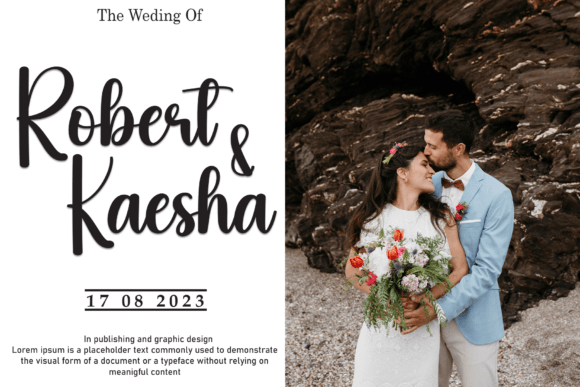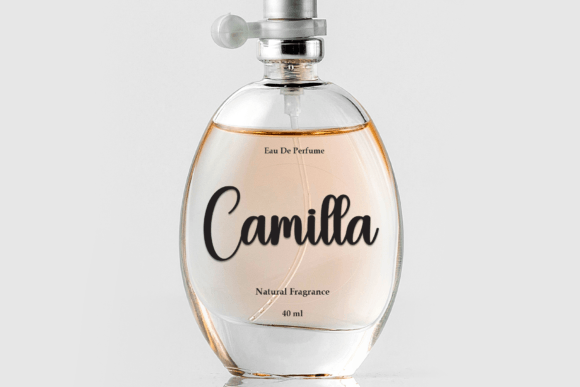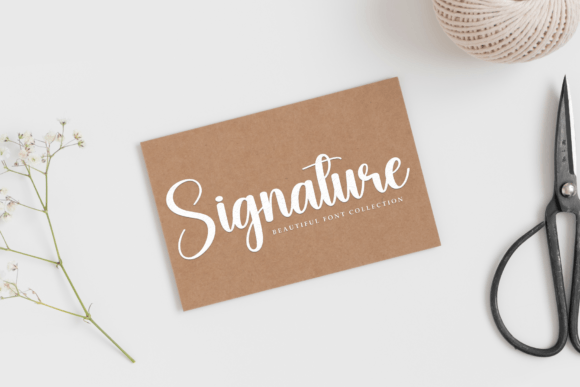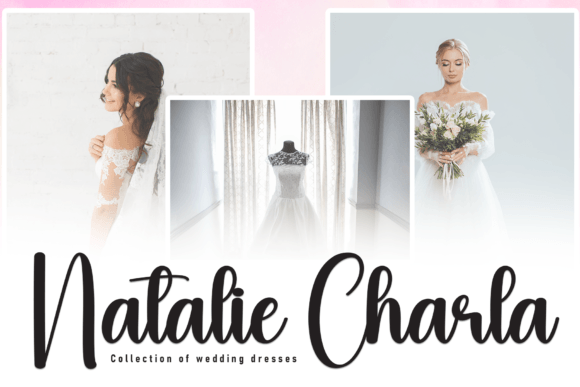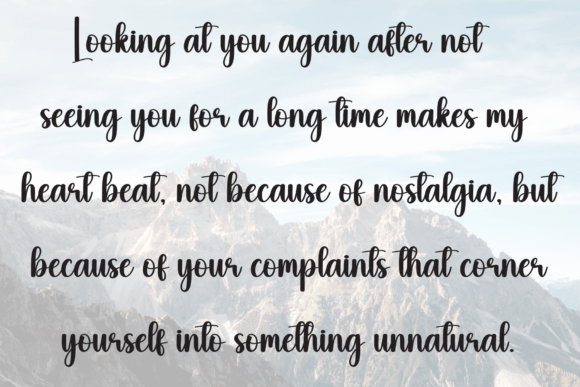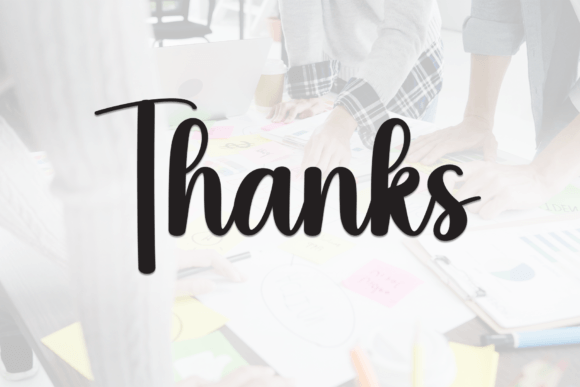
Introducing Briefly Font: Elevate Your Designs with Elegance and Sophistication
In the world of typography, a well-crafted font can make all the difference in transforming a design from ordinary to extraordinary. For designers and crafters seeking to add a touch of elegance and sophistication to their projects, Briefly Font is an exceptional choice. This stylish and incredibly elegant script font is perfect for a variety of applications, including wedding invitations, thank you cards, quotes, greeting cards, logos, business cards, and more.
The Characteristics of Briefly Font
Briefly Font boasts a range of characteristics that make it an ideal choice for designers and crafters. Its elegant script style is reminiscent of handwritten calligraphy, lending a personal and luxurious feel to any design. The font’s flowing lines and curves create a sense of movement and fluidity, making it perfect for designs that require a touch of sophistication.
Uses of Briefly Font
The versatility of Briefly Font is one of its most appealing features. Here are some of the many ways you can use this beautiful font:
- Wedding Invitations: Add a touch of romance and elegance to your wedding invitations with Briefly Font. Its stylish and sophisticated design makes it perfect for formal wedding announcements, save-the-date cards, and wedding programs.
- Thank You Cards: Express your gratitude in style with Briefly Font. This font is ideal for creating beautiful thank you cards for special occasions, such as weddings, baby showers, and birthdays.
- Quotes and Inspirational Posters: Briefly Font is perfect for creating stunning quotes and inspirational posters. Its elegant design makes it easy to read and visually appealing.
- Greeting Cards: Create beautiful greeting cards for any occasion with Briefly Font. From birthday cards to Christmas cards, this font is sure to impress.
- Logos and Branding: Use Briefly Font to create a luxurious and sophisticated logo for your business or brand. Its elegant design makes it perfect for high-end brands and businesses.
- Business Cards: Stand out from the crowd with Briefly Font on your business cards. Its stylish design makes it perfect for professionals and entrepreneurs.
Why Choose Briefly Font?
With so many fonts available, why choose Briefly Font? Here are just a few reasons:
- Elegance and Sophistication: Briefly Font exudes elegance and sophistication, making it perfect for designs that require a touch of luxury.
- Versatility: This font is versatile and can be used for a wide range of applications, from wedding invitations to logos and branding.
- Easy to Read: Briefly Font is easy to read, making it perfect for designs that require a clear and concise message.
- Unique and Creative: This font is unique and creative, making it perfect for designers and crafters who want to stand out from the crowd.
Tips for Using Briefly Font
Here are a few tips for using Briefly Font:
- Use it Sparingly: Briefly Font is a statement font, so use it sparingly to make a big impact.
- Pair it with Other Fonts: Pair Briefly Font with other fonts to create a unique and visually appealing design.
In conclusion, Briefly Font is a stylish and incredibly elegant script font that is perfect for designers and crafters seeking to add a touch of sophistication and elegance to their projects. Its versatility, elegance, and ease of use make it an ideal choice for a wide range of applications. Whether you’re creating wedding invitations, thank you cards, quotes, greeting cards, logos, business cards, or more, Briefly Font is sure to impress.